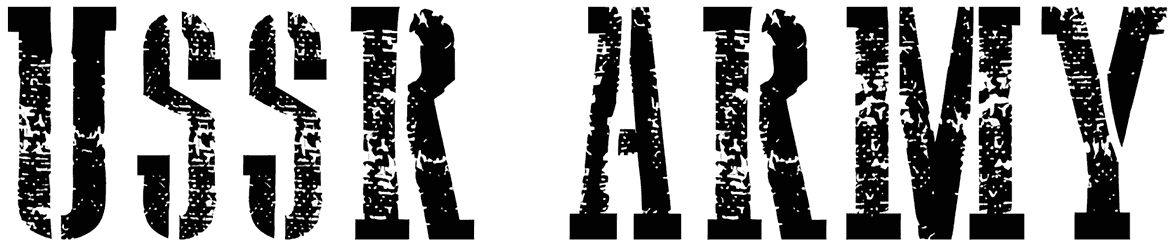
USSR Army Font
Meet USSR Army, a stencil font with a strong and martial vibe. The painted appearance of the letters, erased or faded in parts, gives your design an army and realistic look. With a full set of characters A-Z, the USSR Army is applicable for many creative projects such as flyers, game or movie designs, backgrounds, and much more.